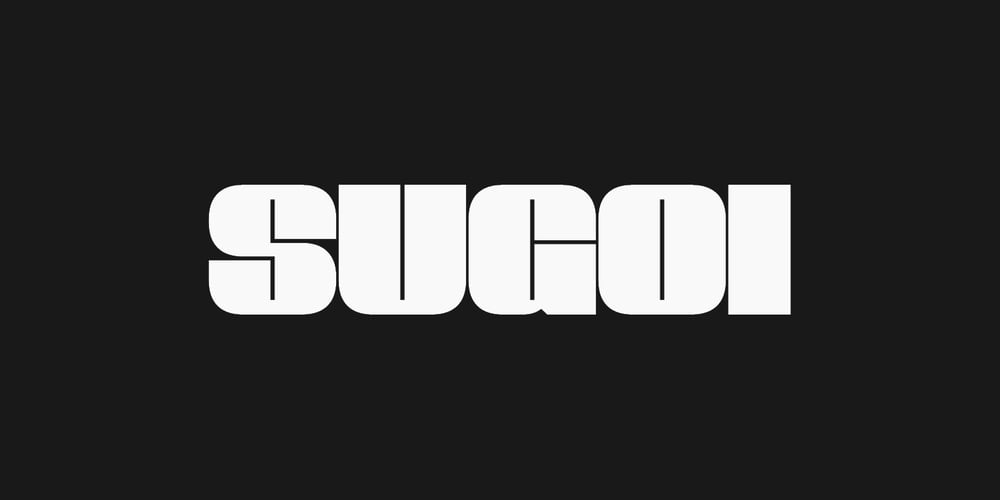
1312 Sugoi Font Family was designed by Ezequiel Filoni and published by Ezequiel Filoni. 1312 Sugoi contains 10 styles and family package options. Sugoi means super in Japanese, which it’s what the design tries to show as well. A strong, easy-to-read, tittle font.*Uppercase